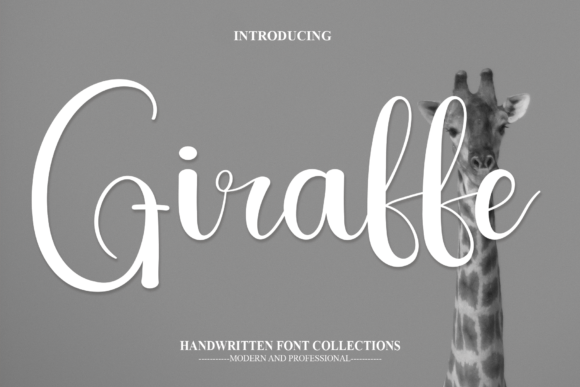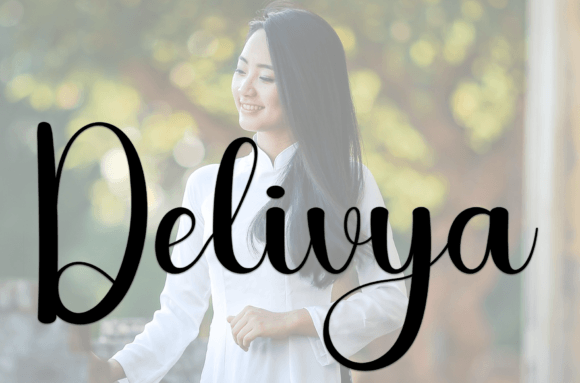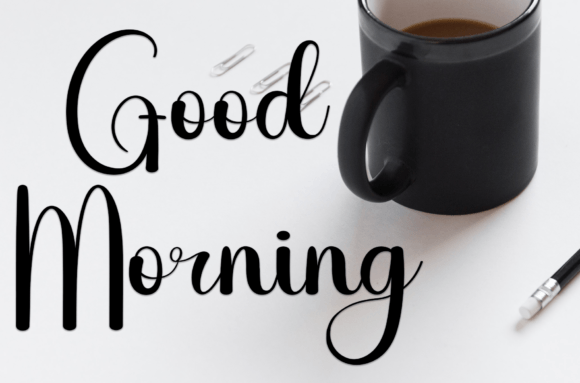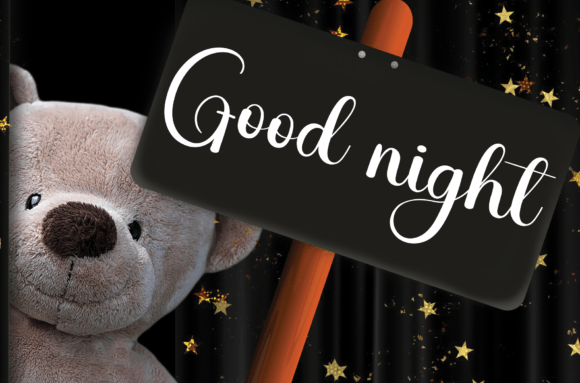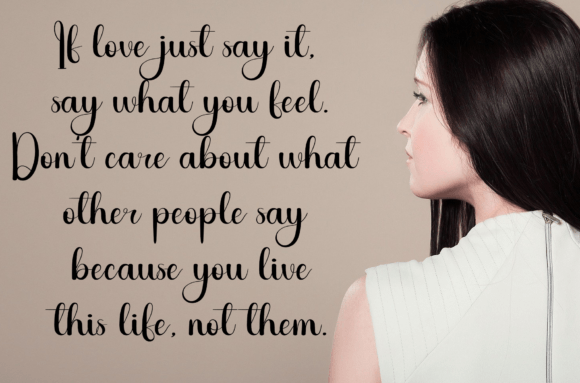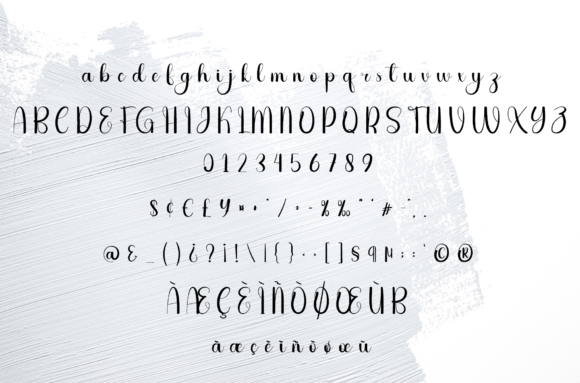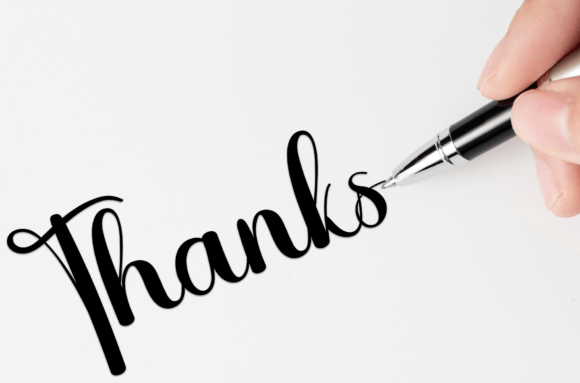
Giraffe Font
About Giraffe Font
Giraffe is a sweet and friendly handwritten font designed to bring a joyful and approachable feel to any creative project. With its smooth, flowing letters and gentle curves, Giraffe offers a casual elegance that feels both personal and inviting. Whether you’re designing wedding invitations, greeting cards, or social media graphics, this font will help your message shine with warmth and authenticity.
A Handwritten Style That Feels Personal
The beauty of Giraffe is its soft, handmade look. Each letter has a natural flow, mimicking the look of real handwriting with a touch of playfulness. This makes your text feel genuine and heartfelt.
If you want your design to create an emotional connection, Giraffe is the perfect choice. From heartfelt notes to professional branding with a friendly twist, this font helps you speak in an authentic voice.
Giraffe adapts effortlessly to a wide variety of uses. Here are just a few ways you can make the most of it:
• Wedding Invitations: Create elegant and romantic invitations with a personal feel.
• Greeting Cards: Make birthdays, anniversaries, and thank-you cards extra special.
• Quotes and Wall Art: Share inspiring messages in a sweet, approachable style.
• Social Media Graphics: Design posts that stand out with a friendly, relaxed look.
• Logos and Branding: Build a brand that feels warm, authentic, and welcoming.
• Product Packaging: Add a personal touch to labels and tags.
• Event Signage: Make signs for showers, parties, and celebrations memorable.
Wherever you use it, Giraffe brings a touch of happiness and charm.
Design Tips for Giraffe Font
Want your designs to look polished and professional? Here are a few quick tips:
• Pair with Sans Serif Fonts: Create balance by mixing Giraffe with clean, modern typography.
• Use Light, Soft Colors: Pastel shades and neutrals complement Giraffe’s friendly vibe.
• Add Icons or Illustrations: Small doodles or hand-drawn elements enhance the handwritten feel.
• Mind Your Spacing: Keep enough space between lines so the design feels airy and easy to read.
Small adjustments like these can elevate your project and highlight the font’s playful character.
Why Choose Giraffe?
Giraffe isn’t just a font—it’s a way to add a human touch to your words. Its smooth letters and relaxed style make it feel approachable and warm, while its versatility ensures it fits beautifully in countless projects.
From wedding stationery to social media posts, Giraffe makes it easy to create designs that feel sincere and inviting. If you want your work to connect with people and leave a lasting impression, this font is a must-have in your collection.
Bring your creative ideas to life and watch them stand out with the sweet and friendly energy of Giraffe Font.